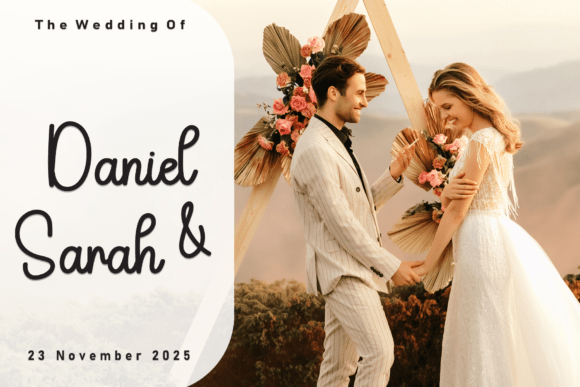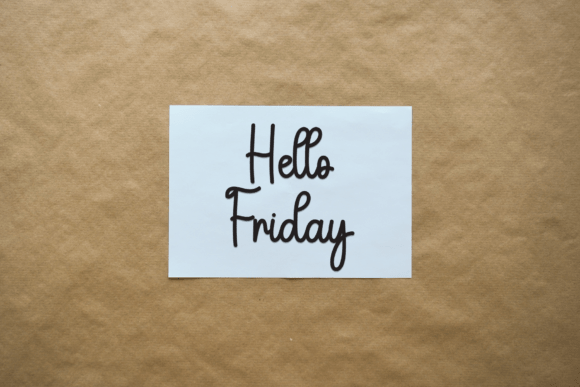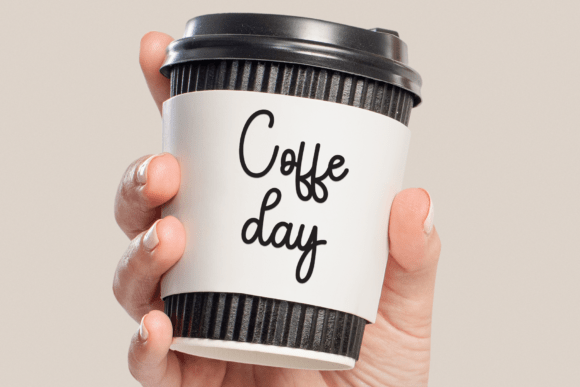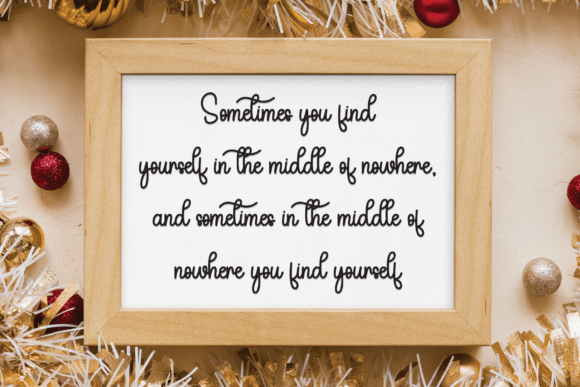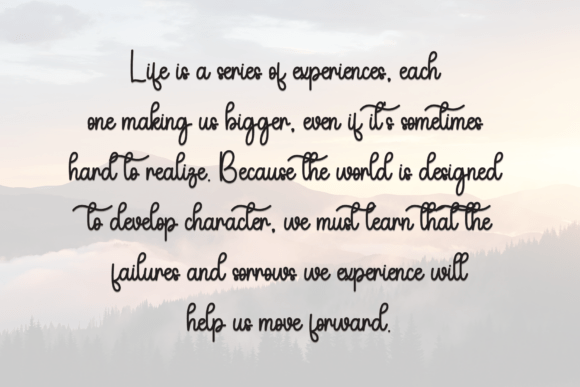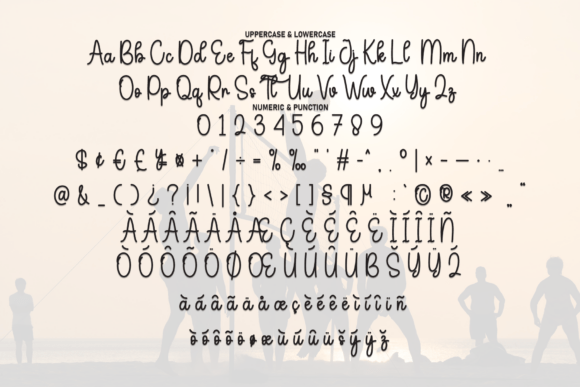
The Perfect Font for Coastal Vibes: A Deep Dive into Beach Volleyball Font
- ✅ Fluid brush strokes and dynamic curves that give it a hand-painted feel
- ✅ Expressive letterforms that add a touch of elegance and sophistication
- ⚠️ Some characters may require manual kerning for optimal spacing
- ⚠️ Limited use of uppercase letters, but the font makes up for it with stylish alternates
The Story Behind Beach Volleyball Font
Beach Volleyball Font was designed with the coastal lifestyle in mind. Its creator, a passionate typographer, drew inspiration from the flowing curves of beachy handwriting and the elegance of modern calligraphy. The result is a font that’s both artistic and sophisticated, perfect for designers looking to add a touch of coastal charm to their projects.
Q: What makes Beach Volleyball Font unique?
A: Beach Volleyball Font stands out with its fluid brush strokes, dynamic curves, and expressive letterforms, giving it a hand-painted feel with a modern twist.
Q: Is Beach Volleyball Font suitable for body text?
A: While Beach Volleyball Font is beautiful, it’s best suited for headlines, titles, and short paragraphs. Its artistic nature makes it less suitable for long-form body text.